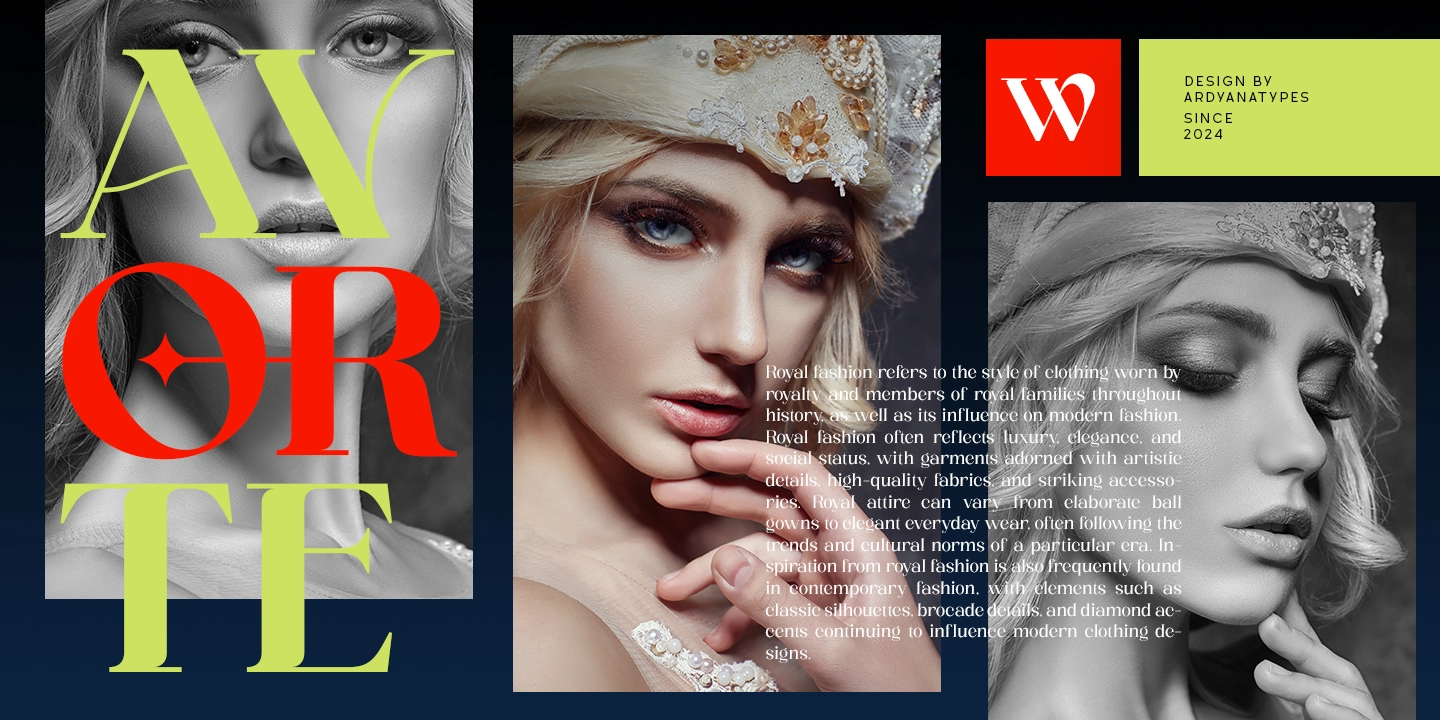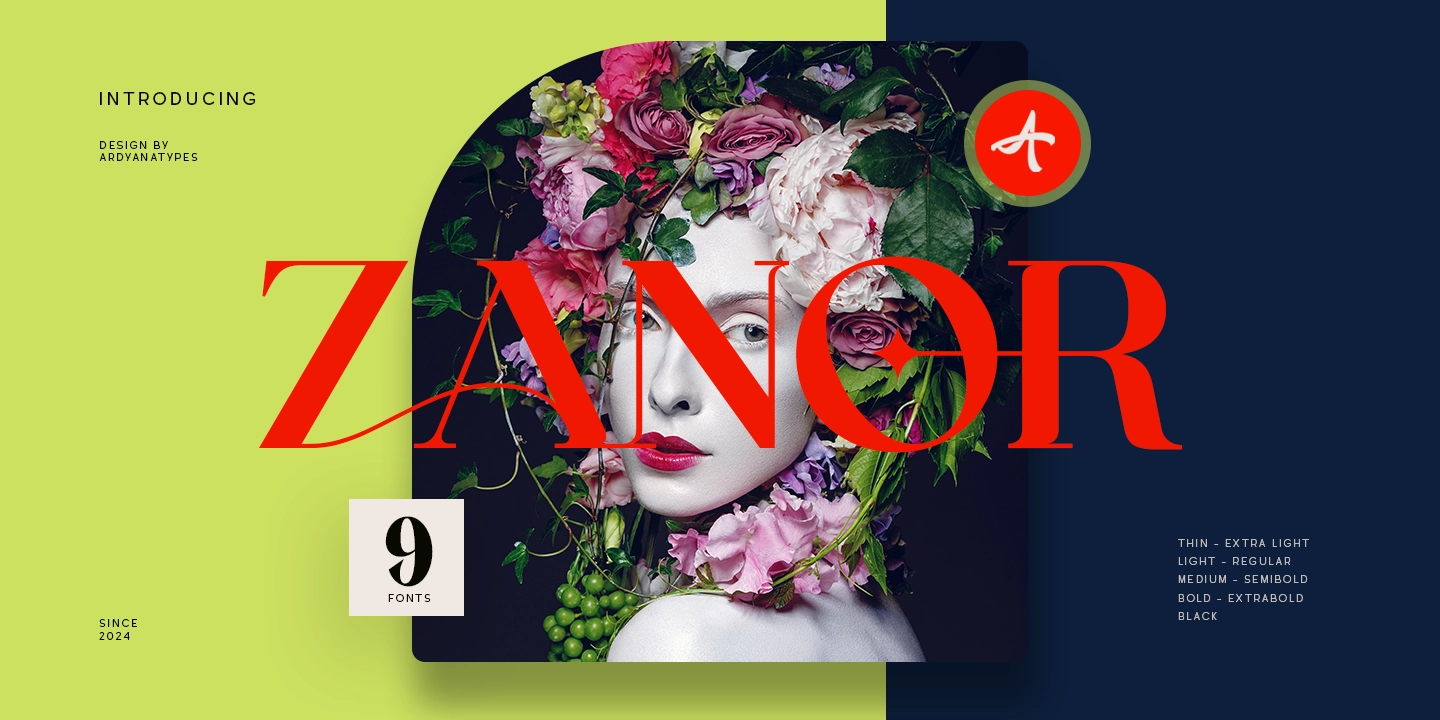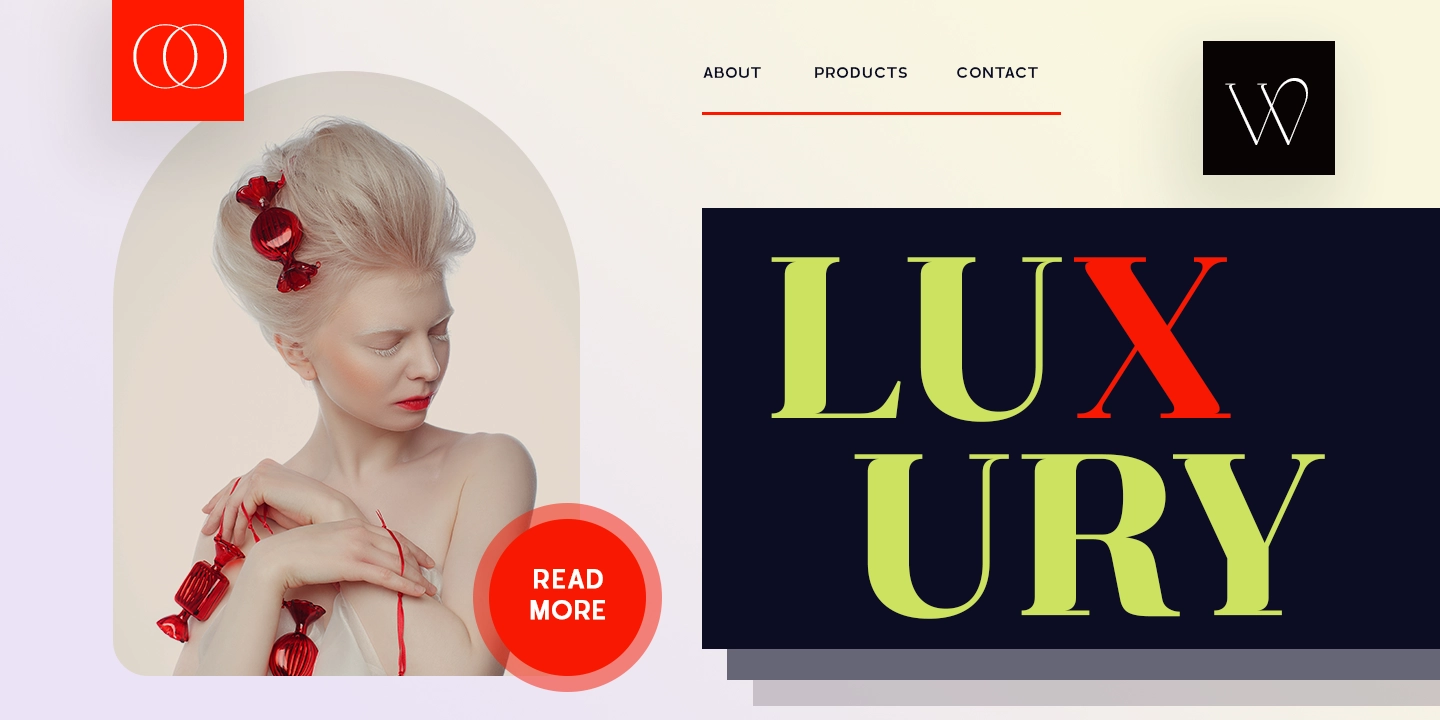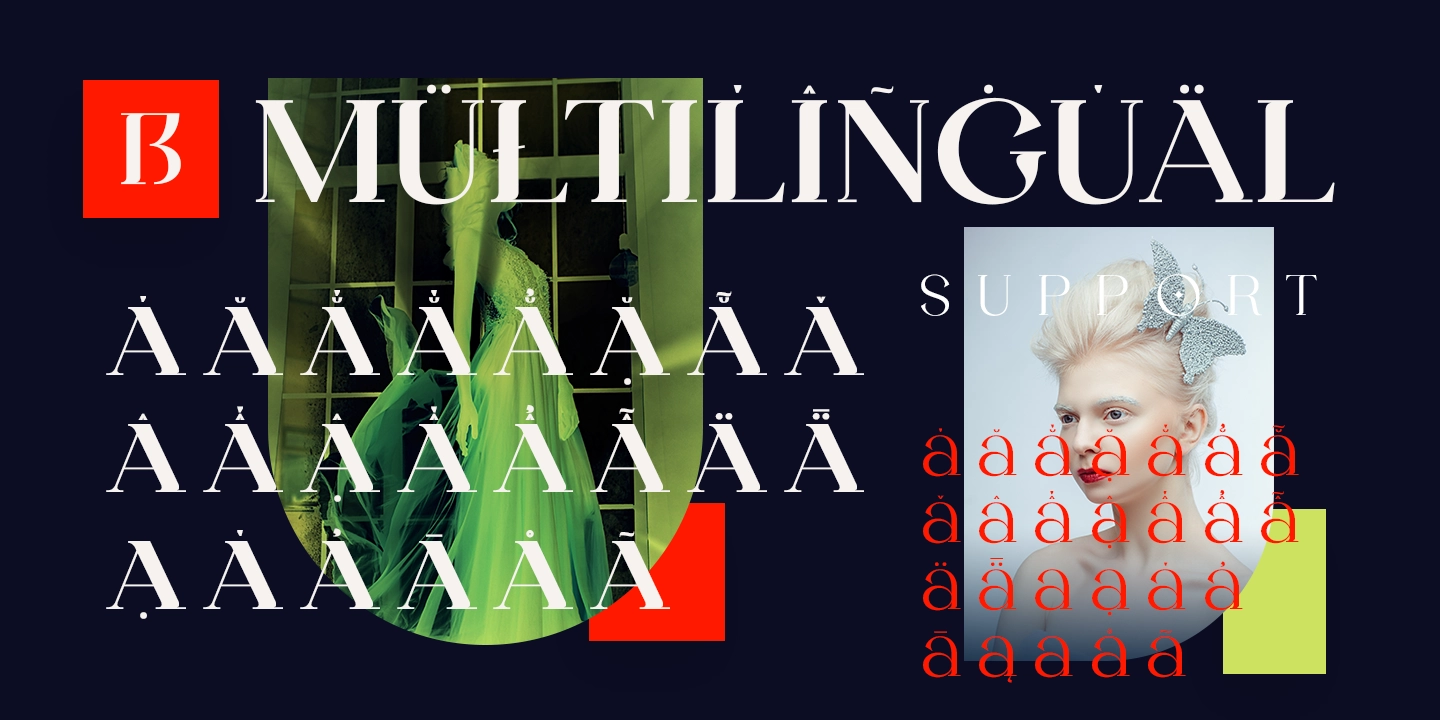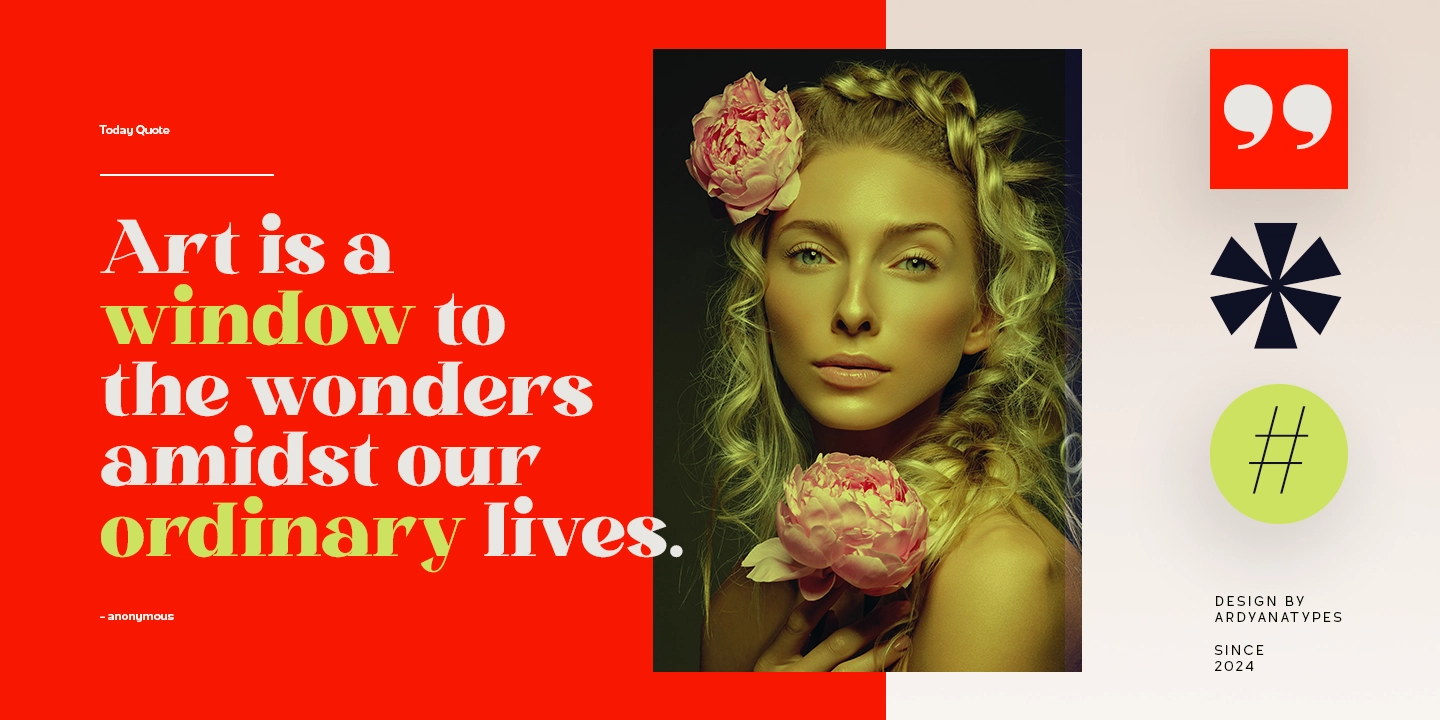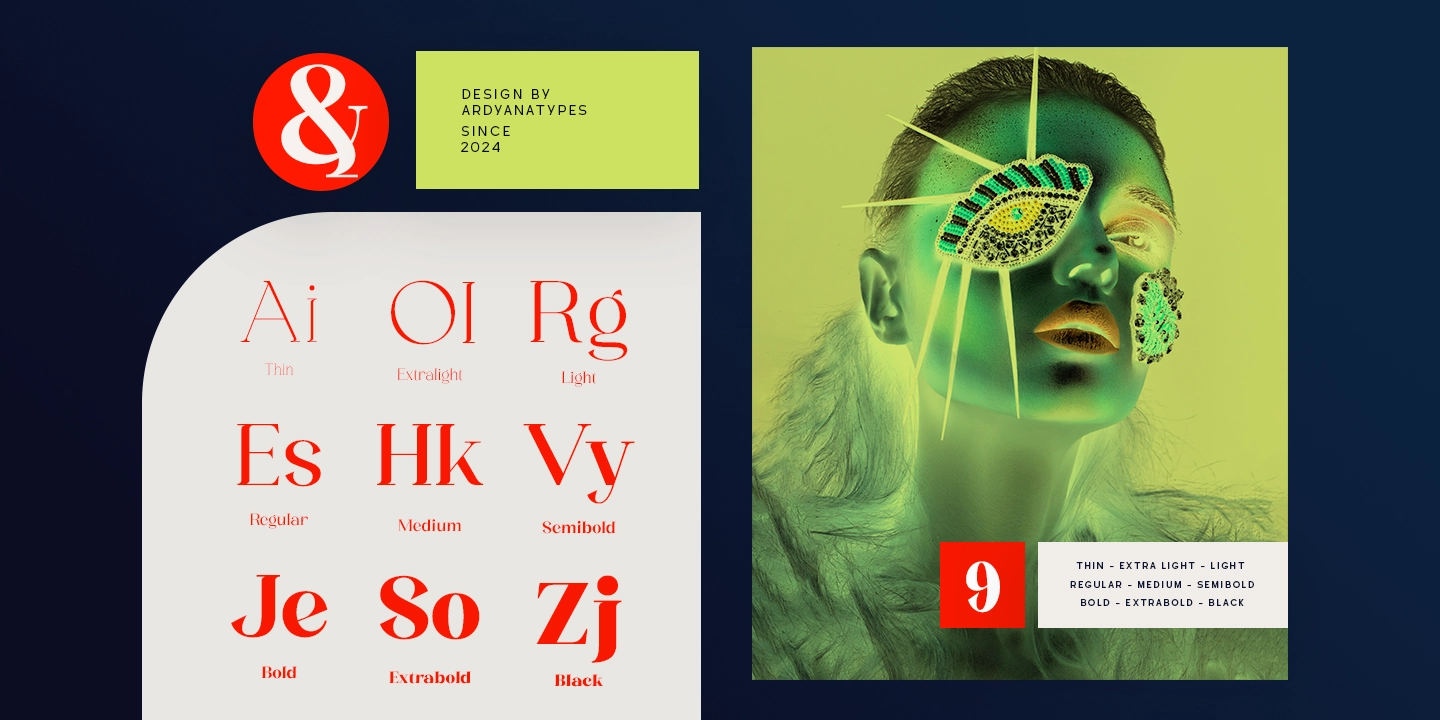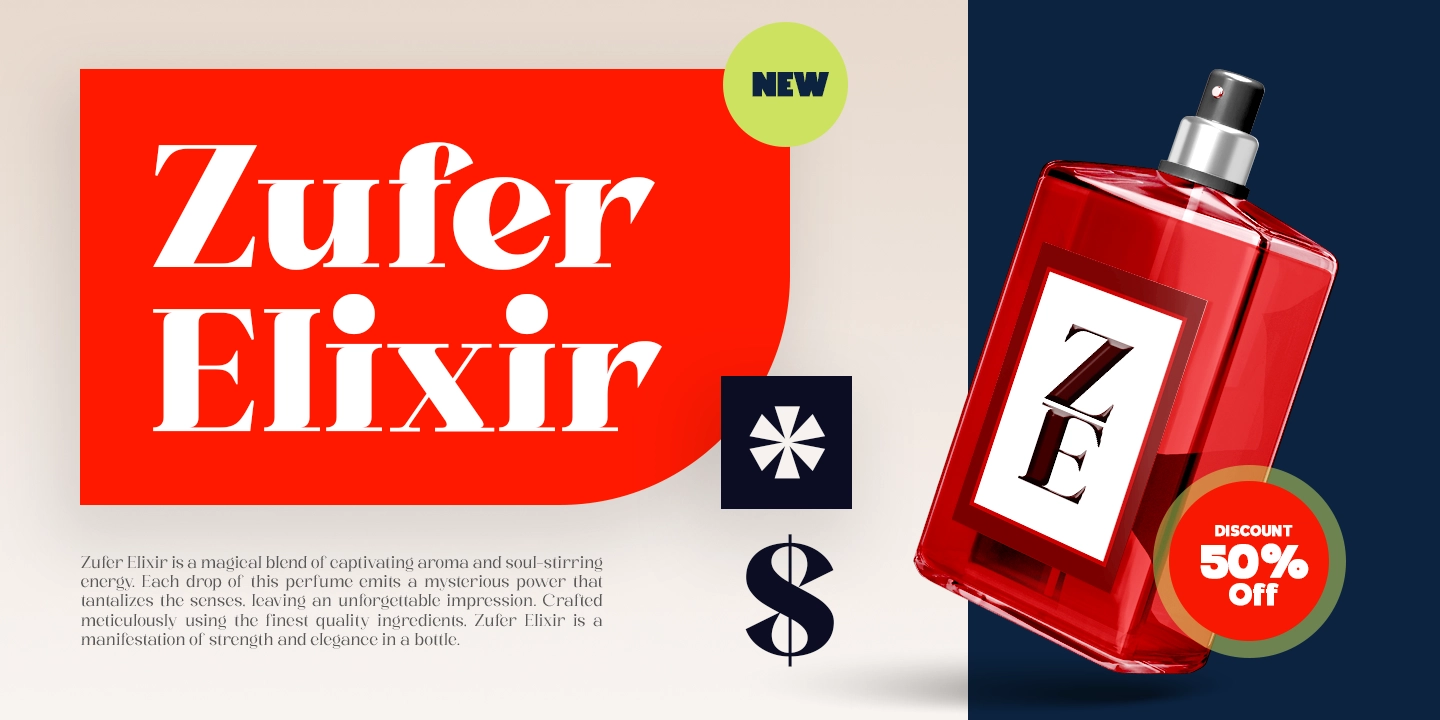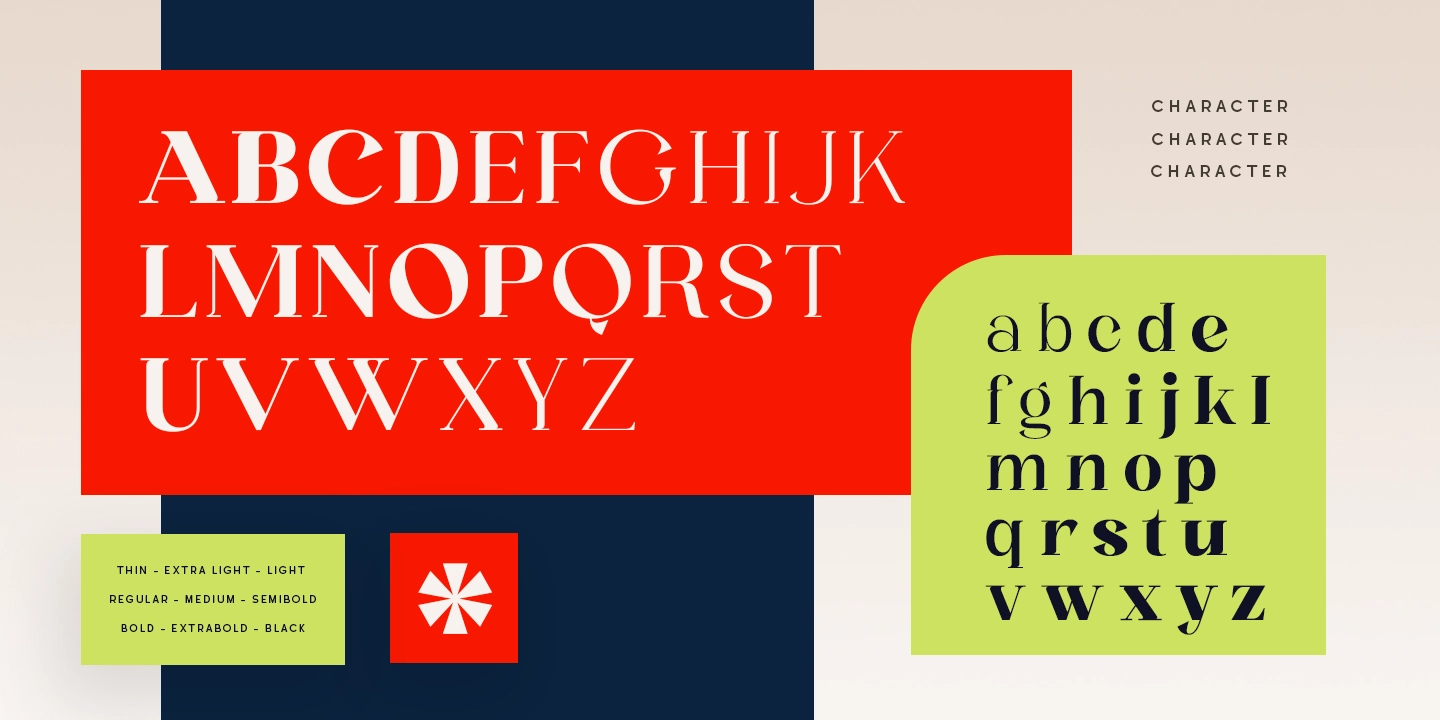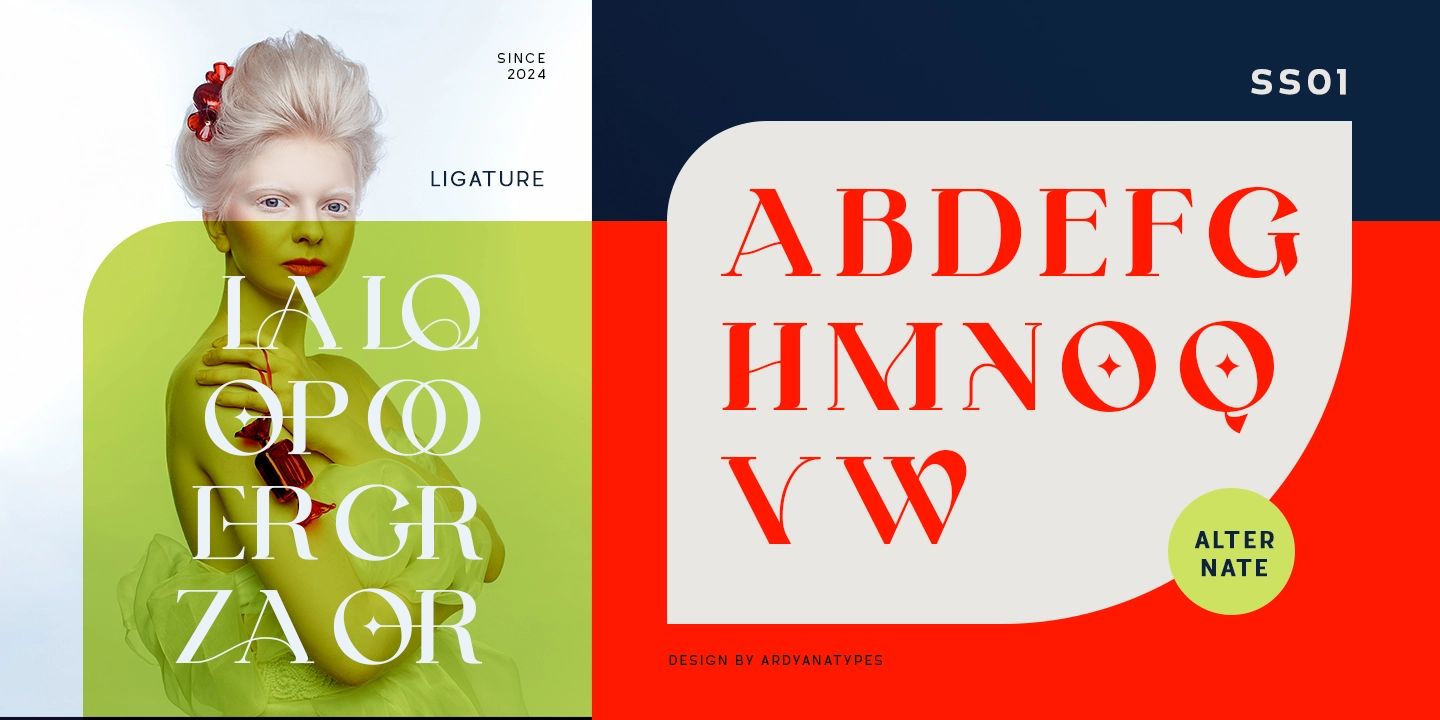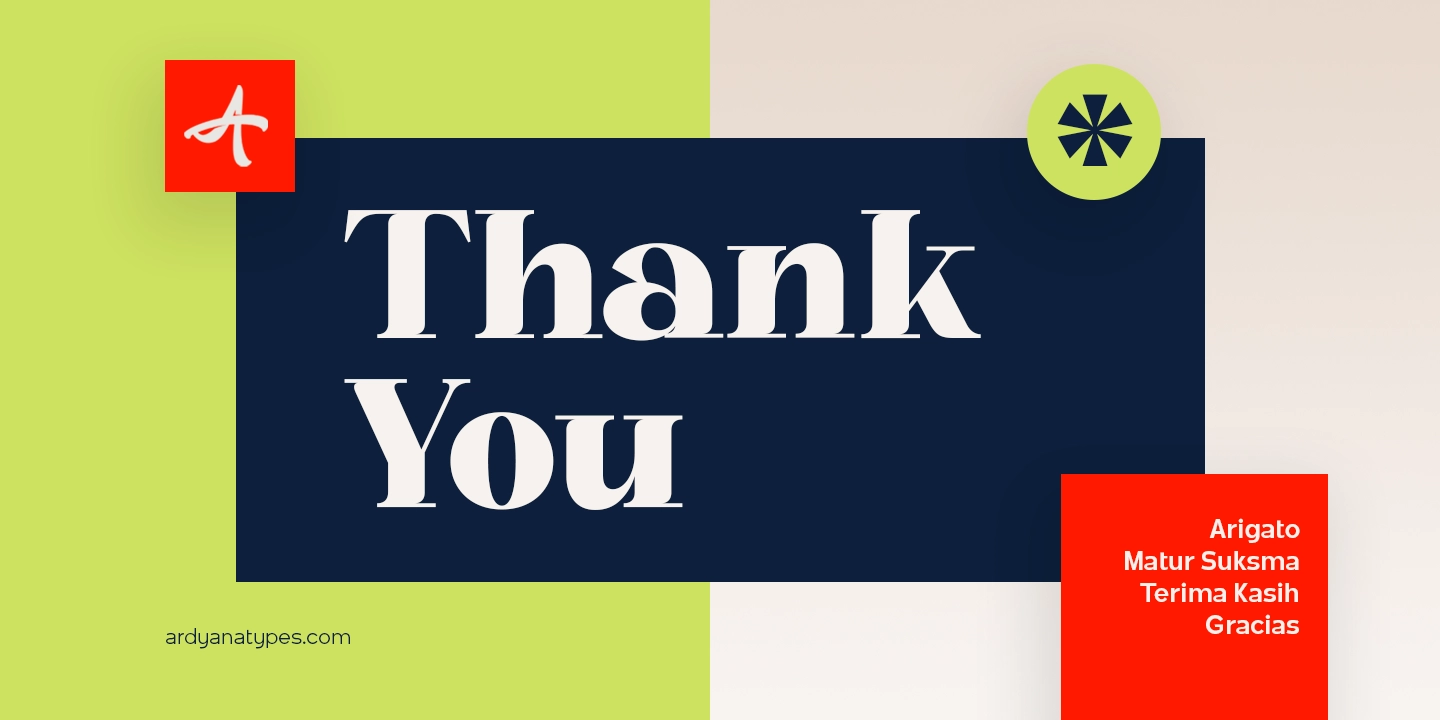
Zanor - Elegant Serif Font
9 Styles
Zanor is a serif font designed with modern elegance to meet the aesthetic needs of contemporary design. With nine thickness levels varying from 'Thin' to 'Black,' Zanor offers exceptional design flexibility, enabling the creation of text that is not only functional but also visually appealing.
Designed with high precision, Zanor provides optimal reading comfort, making it very suitable for use in body text in documents or publications. Its distinctive and proportional letter shape makes Zanor the right choice for book titles, film titles, posters, business cards and websites, highlighting the strong and charming character of the text.
The comprehensive OpenType features enrich Zanor with various alternative letter styles, ligatures, and other typographic capabilities that not only enrich design options but also significantly enhance the visual appeal of the text. This capability allows designers to explore their creative expression, enabling more effective and engaging visual communication.
Additionally, Zanor supports multilingual use, ensuring that your designs can be appreciated globally without limitations. Whether in professional applications or creative projects, Zanor is a font that meets both functional and aesthetic needs, supporting the creation of rich and dynamic designs on the global stage.
Use Zanor to bring a new dimension to your typography projects. Elegance and modernity meet to produce communications that read and feel.